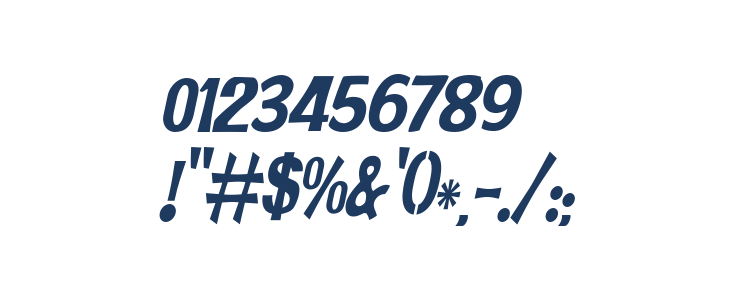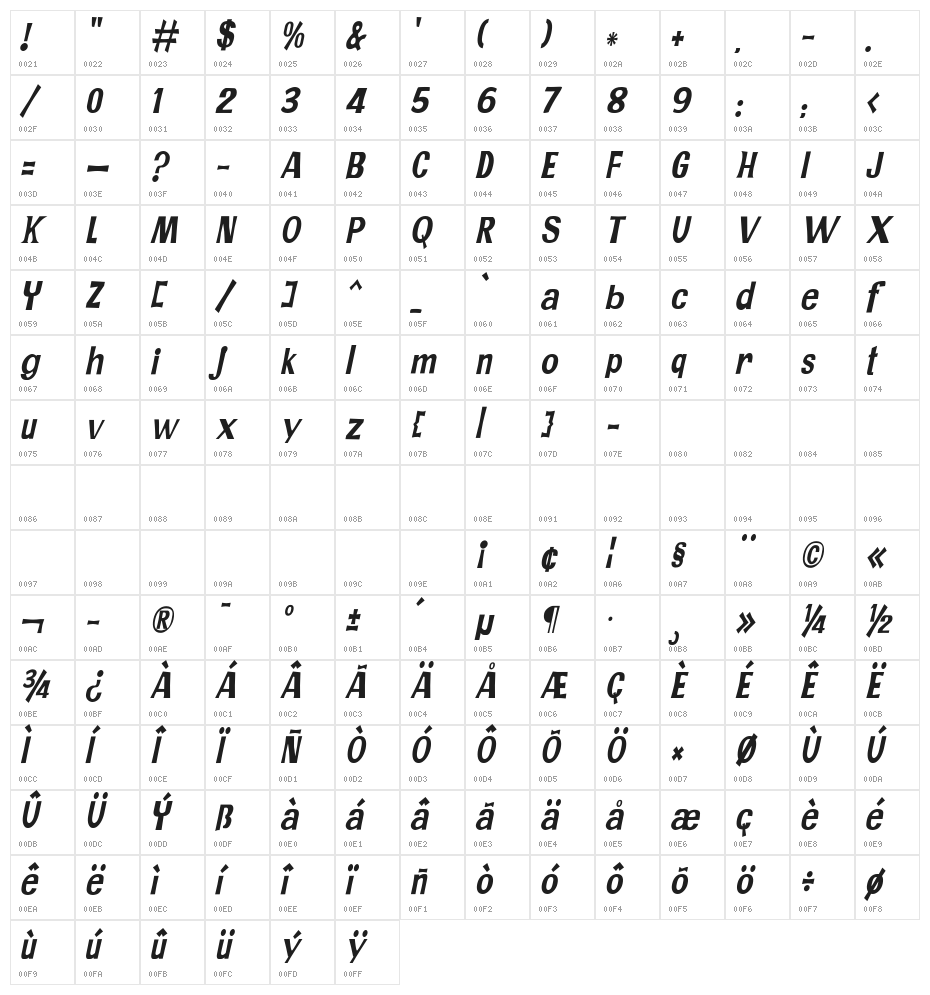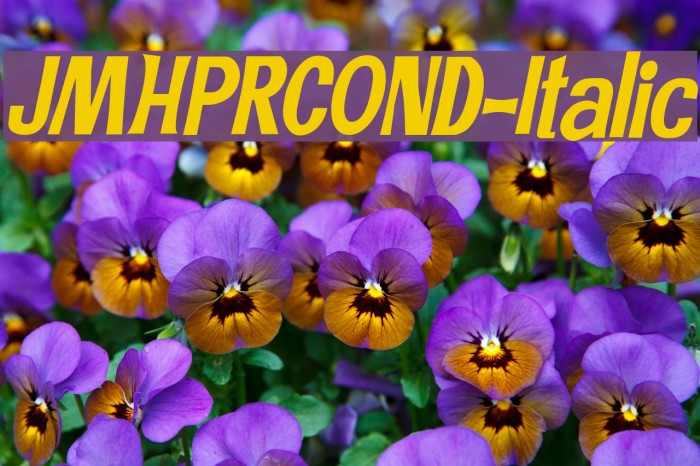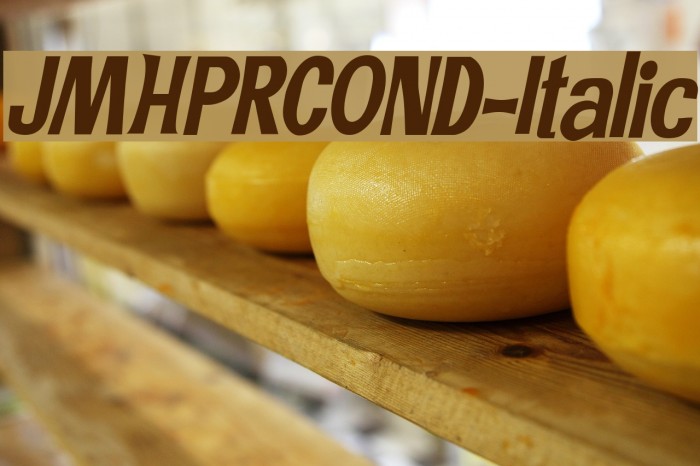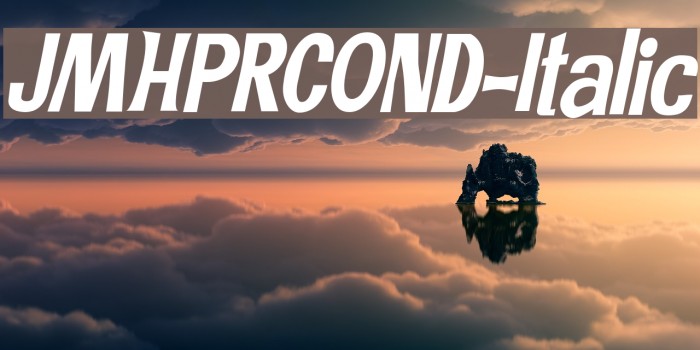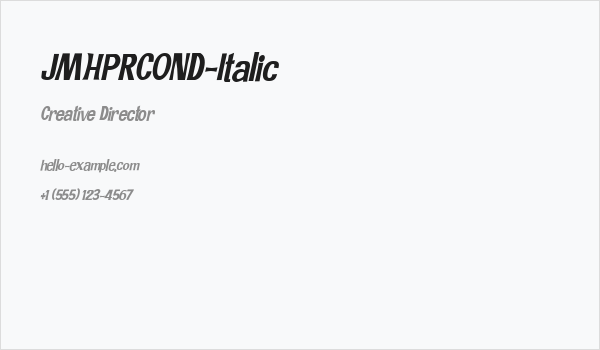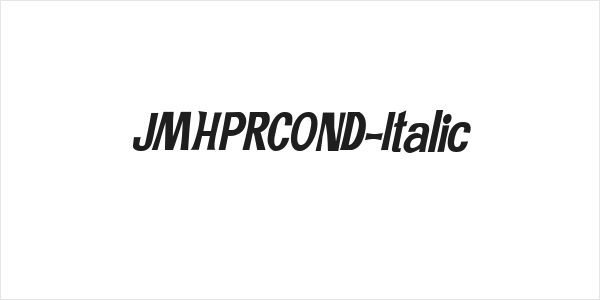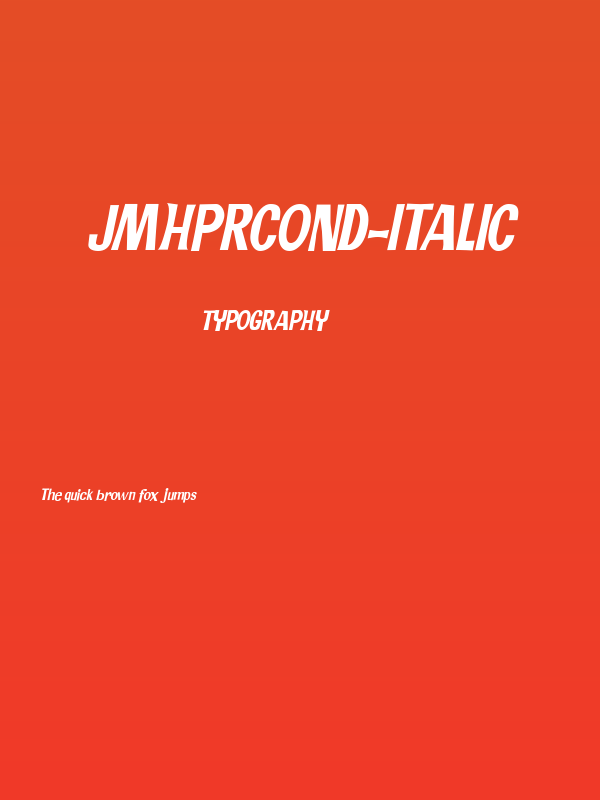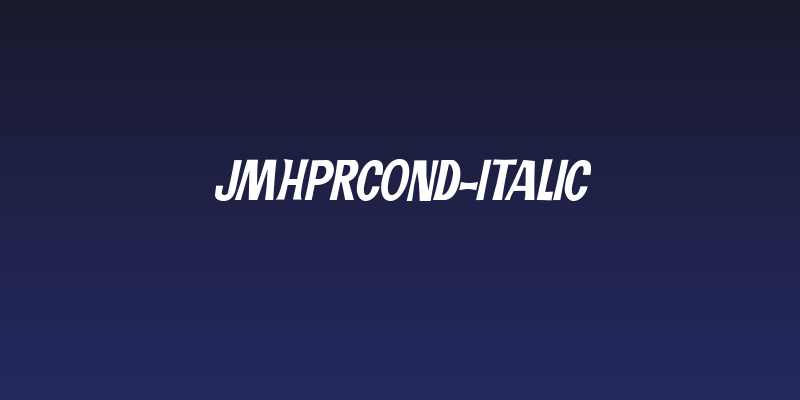
JMHPRCOND-Italic Font
JMHPRCOND-Italic Description
This font features a bold and dynamic italic style, characterized by its strong slant and thick strokes. The uppercase letters are tall and commanding, while the lowercase letters maintain a consistent flow with a slight forward tilt, enhancing readability. The numerals are robust, matching the weight of the letters, and the special characters are crafted with precision, ensuring they stand out. The overall design is modern and impactful, making it suitable for attention-grabbing headlines and titles.
Use CaseHeadlines, Logos, Advertising
Proposed ProjectsIdeal for branding, advertising, and editorial design where a strong, modern presence is required.